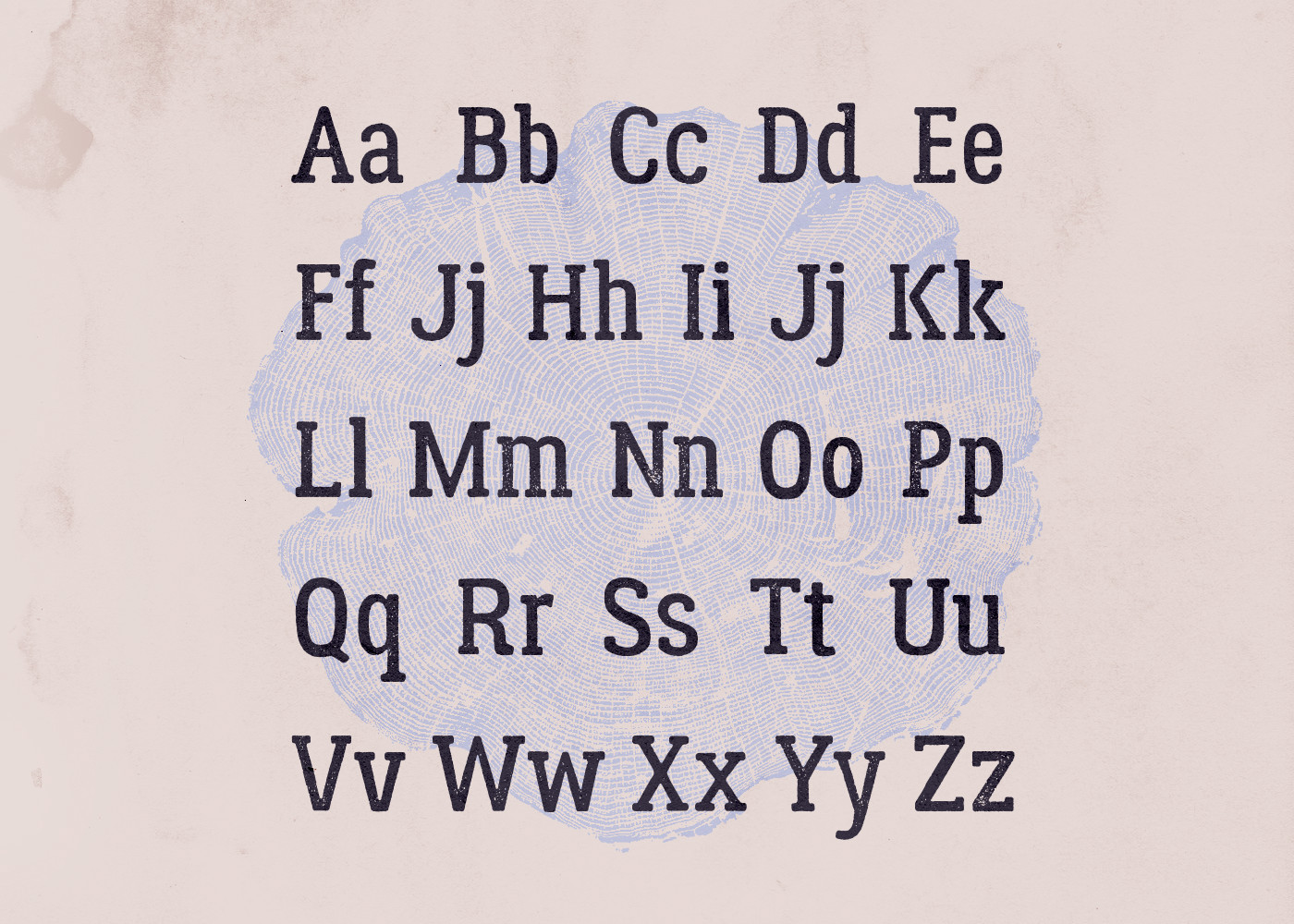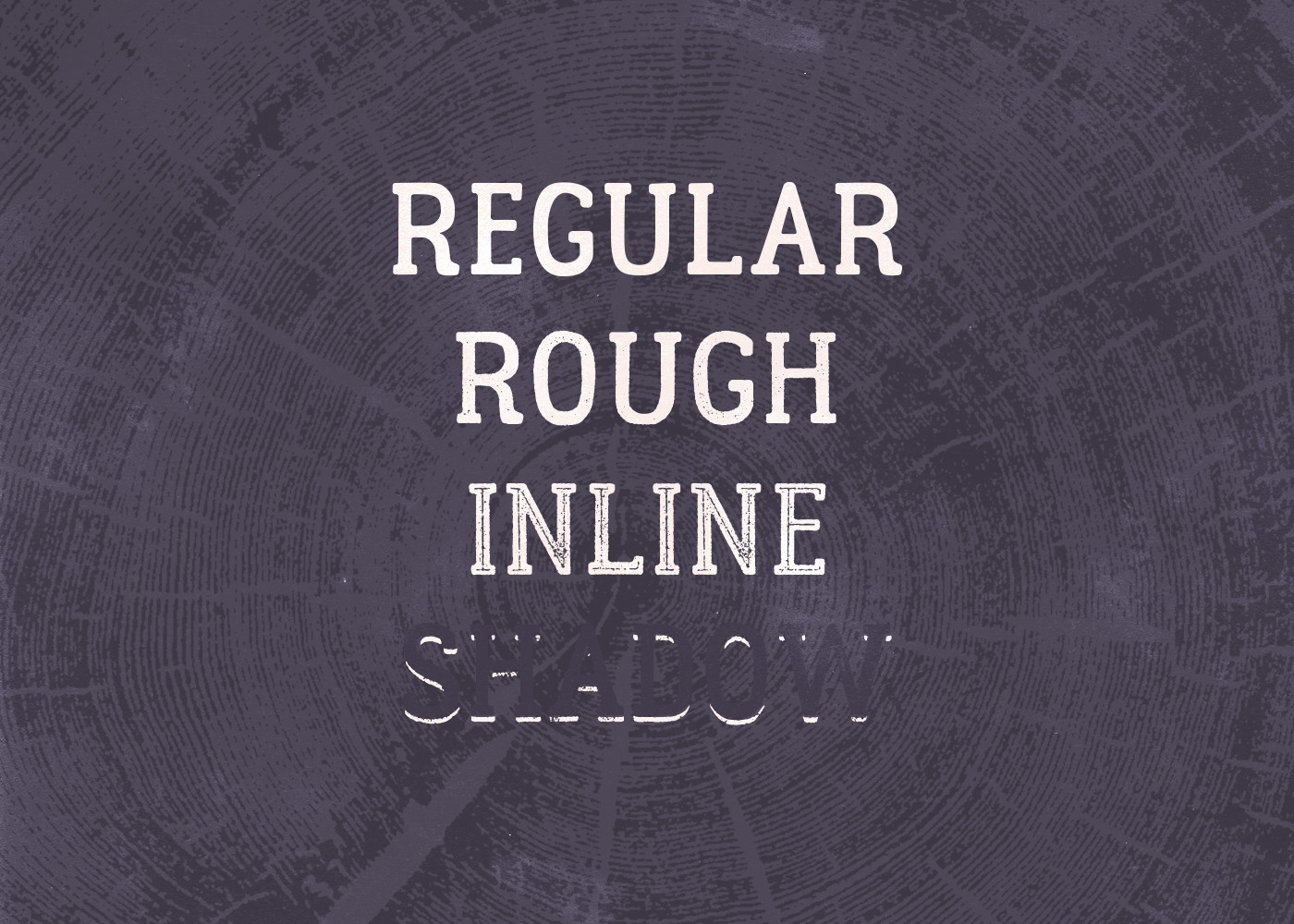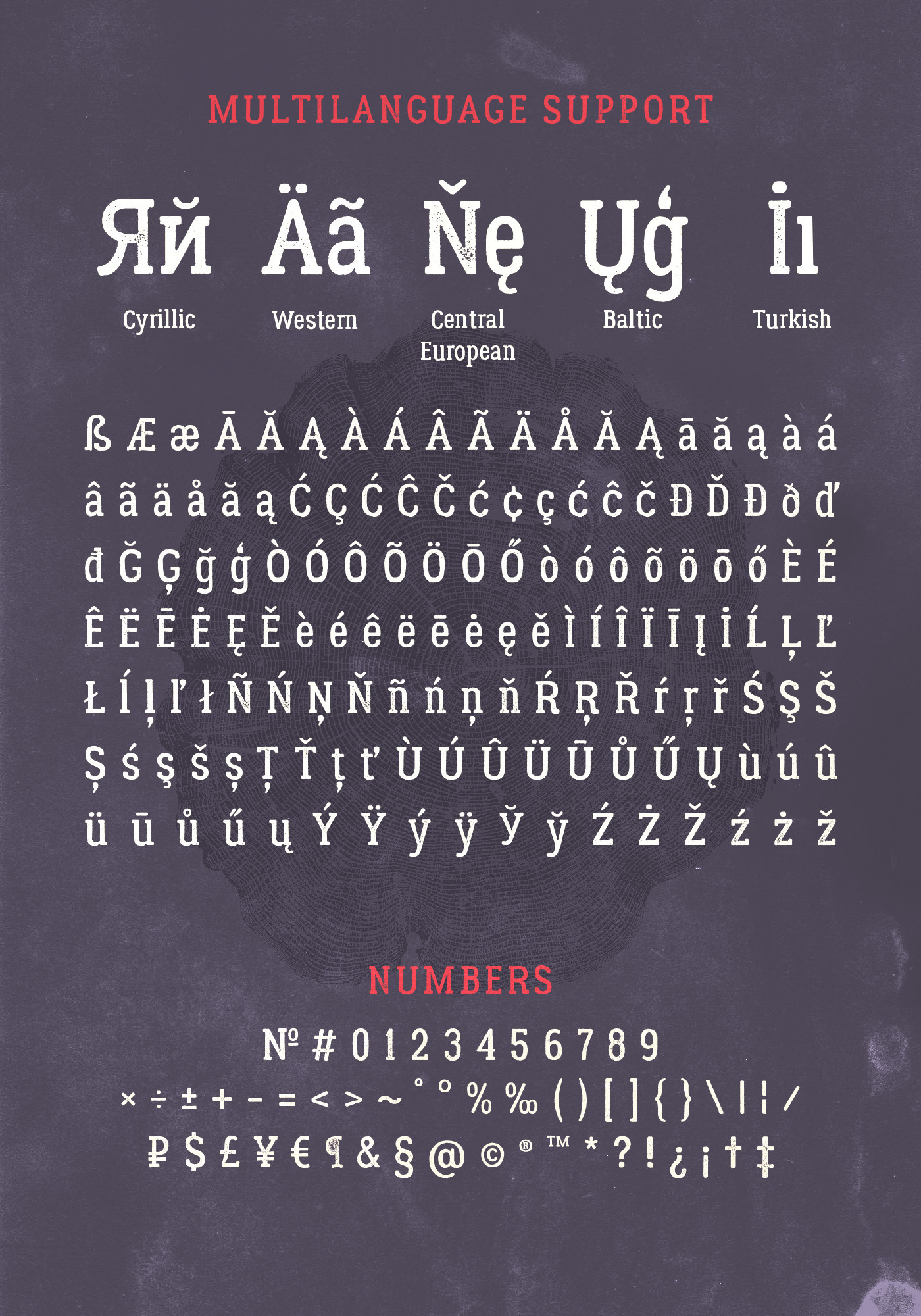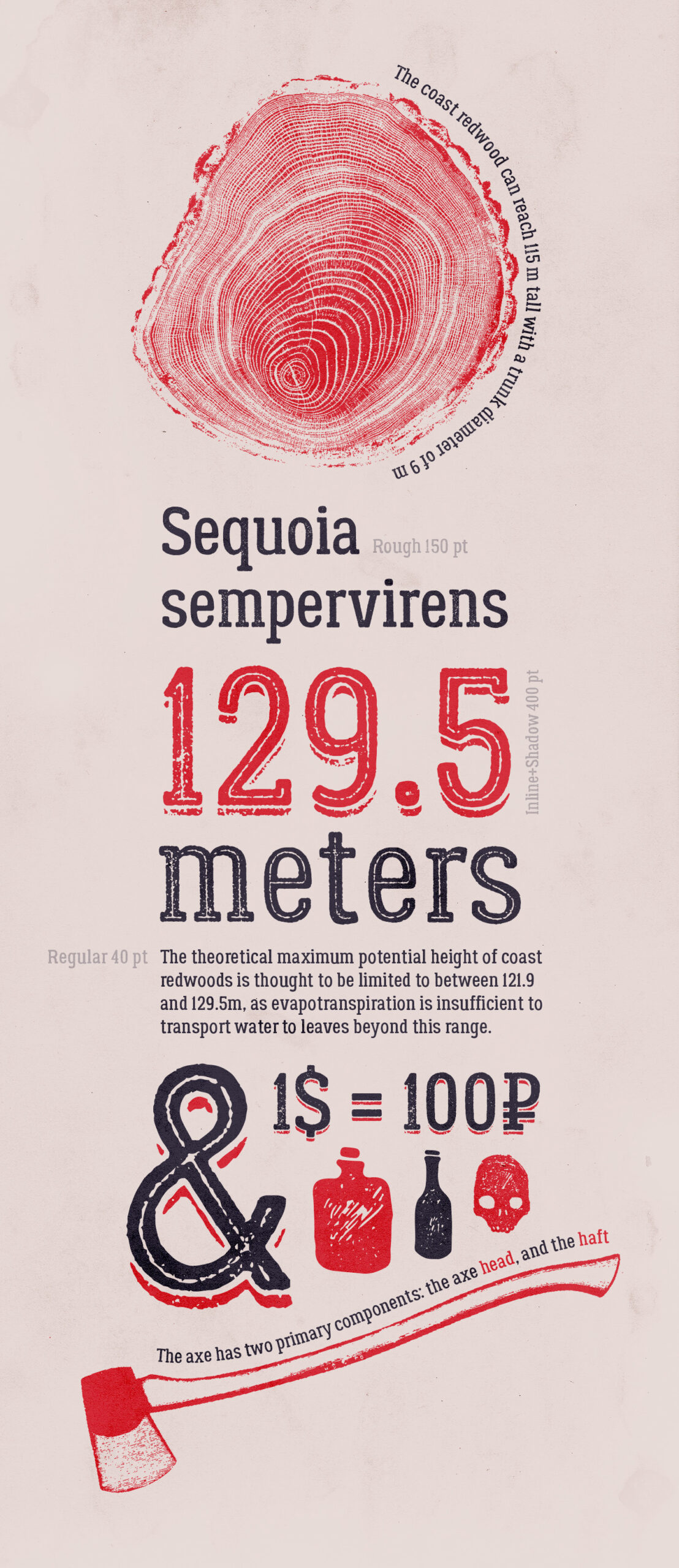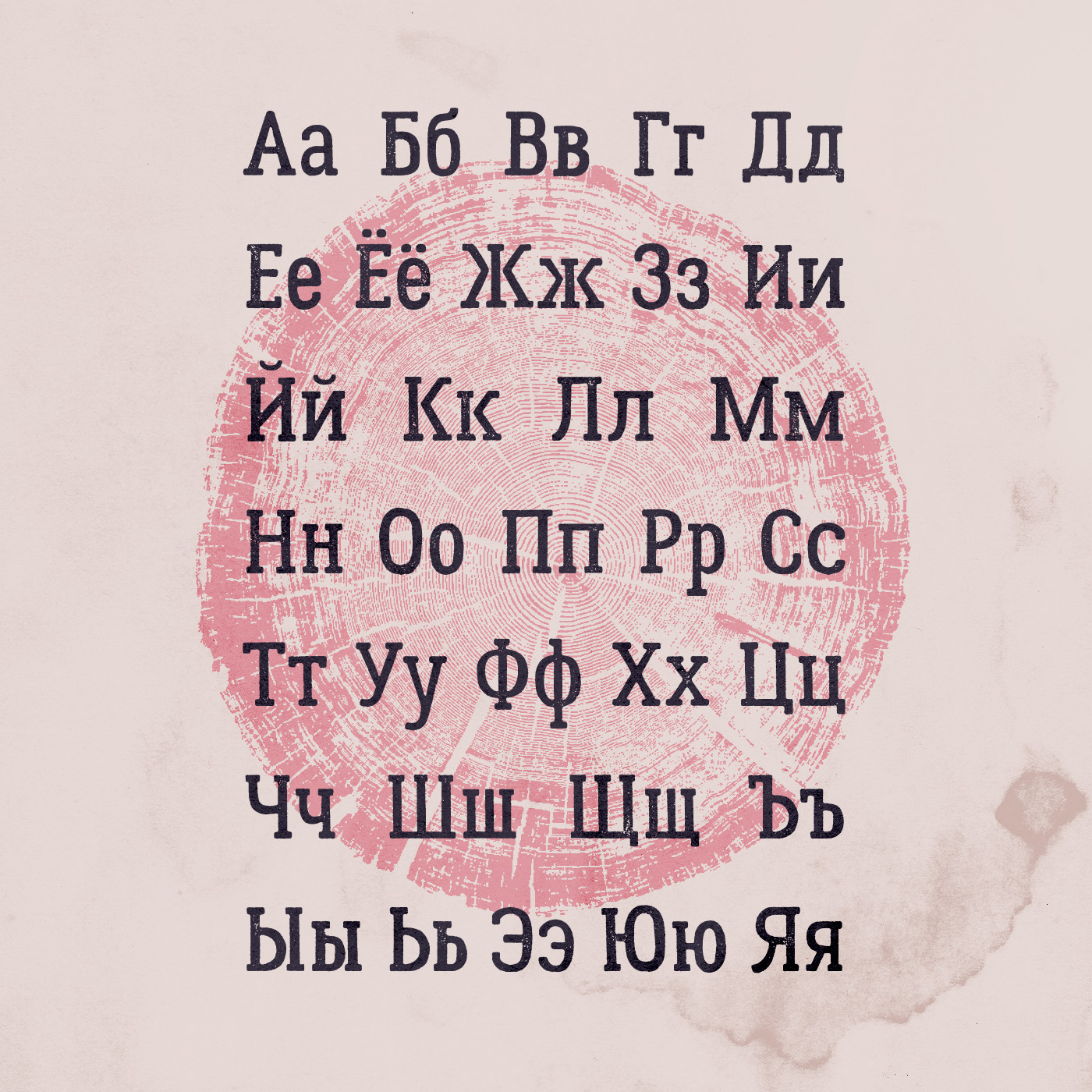
Is your typeface toolbox constantly screaming for something new? Well then feast your eyes on the Lumberjack Free Font! Designed by Aleksei Kalinin, this font is perfect for T-shirts, logos, invitations, posters and branding. Includes multilingual support and it’s free for personal & commercial use!